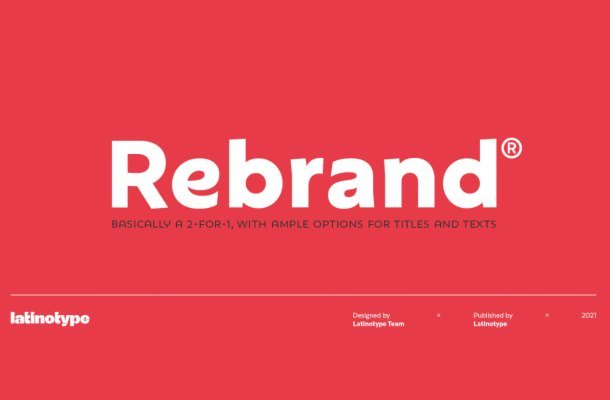
Rebrand Font Family
Rebrand Type features geometry, typography out of the box confidence booster sans-serif type family. But instead of the pure, cold mathematics, this typeface tries to have a smiling and friendly face.
Rebrand: a neutral Workhorse Geometric Sans Serif font suitable for logotypes, headlines, subheads, body copy and any other space in between. It also gives a ton of character, perfect for branding.
Rebrand Sans Serif Font Family